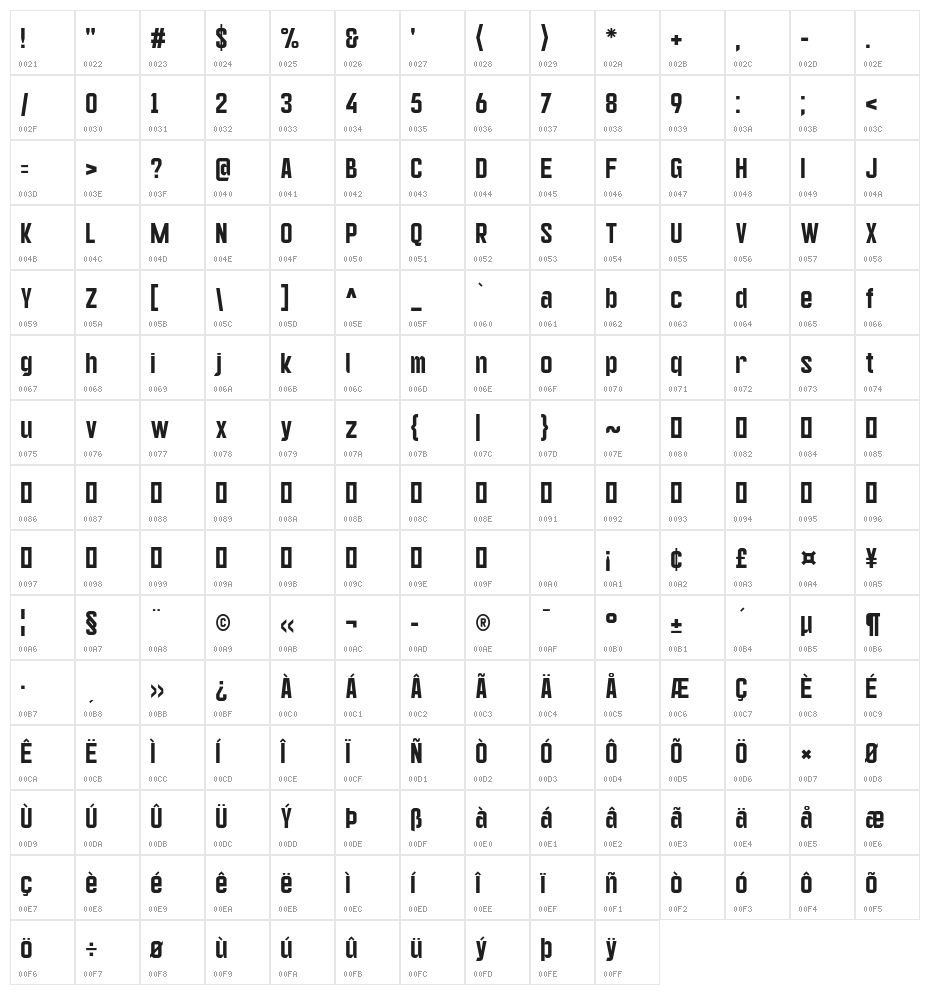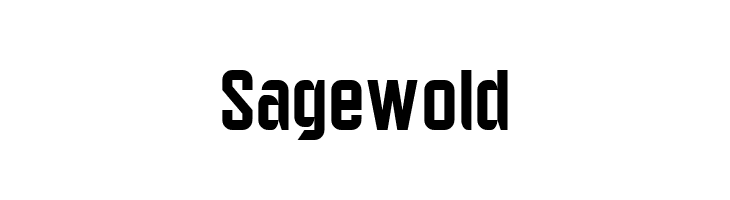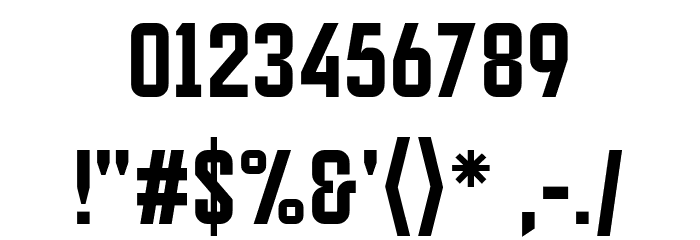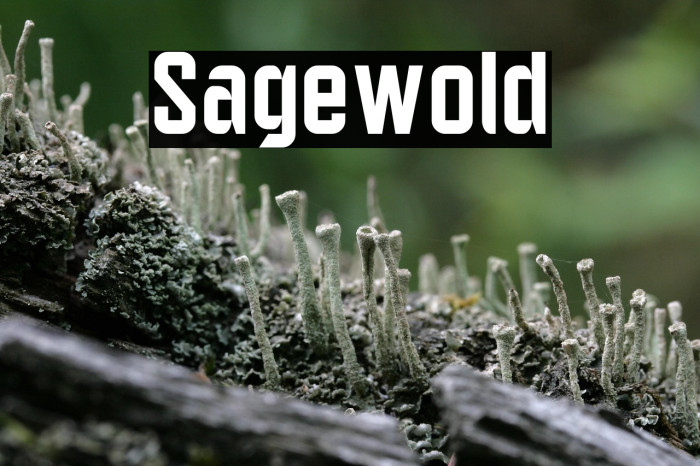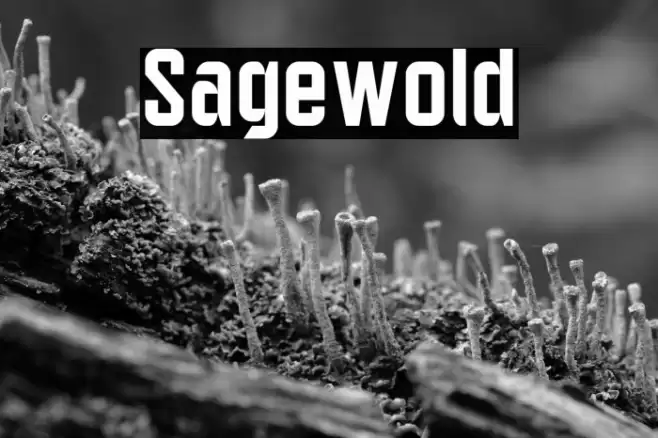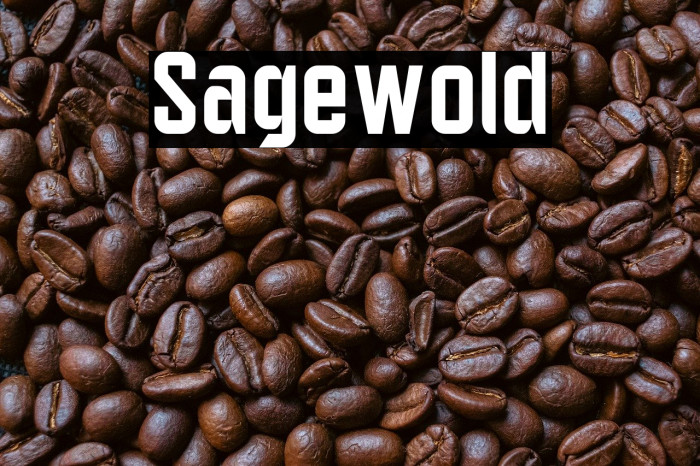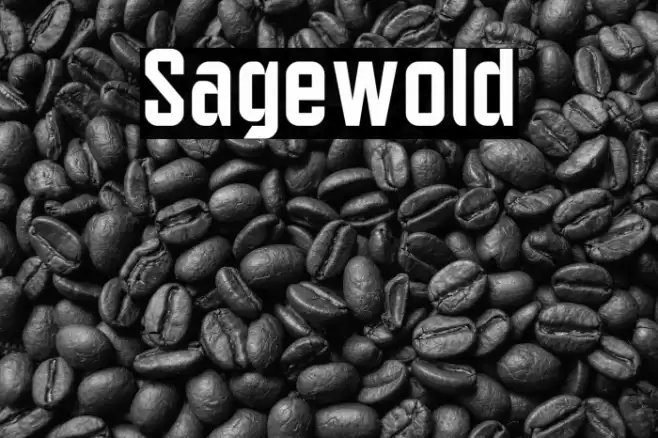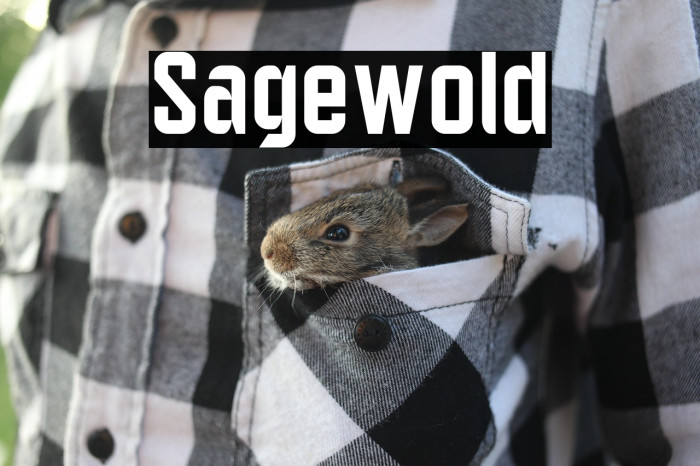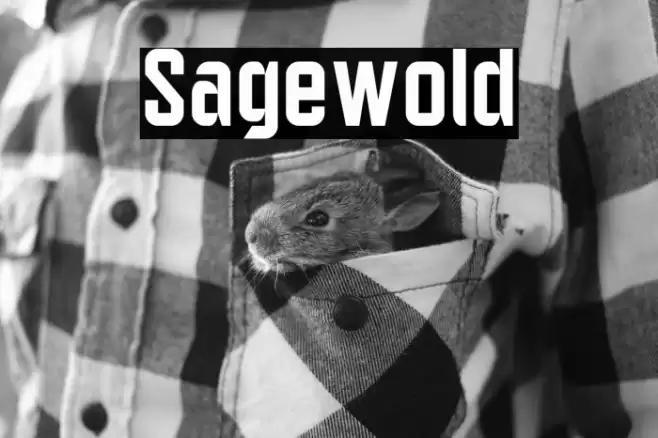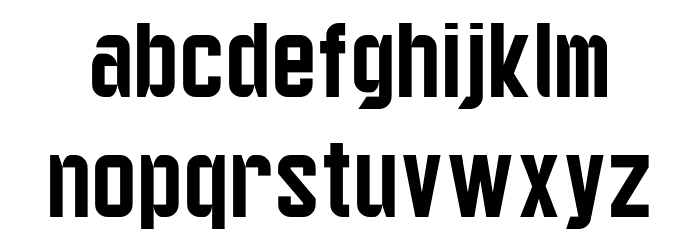
Sagewold Font
Sagewold Description
This font features a bold and impactful design with a modern aesthetic. The characters are tall and slightly condensed, giving a strong and assertive presence. The uppercase letters are uniform in height, while the lowercase letters maintain a consistent style, enhancing readability. The numbers are clear and distinct, matching the overall boldness of the font. Special characters are well-defined, adding versatility to the font's use. The strokes are thick and consistent, contributing to a medium contrast that balances visibility and style.
| Proposed Projects | Ideal for headlines, posters, branding, and any project requiring a strong visual impact. |